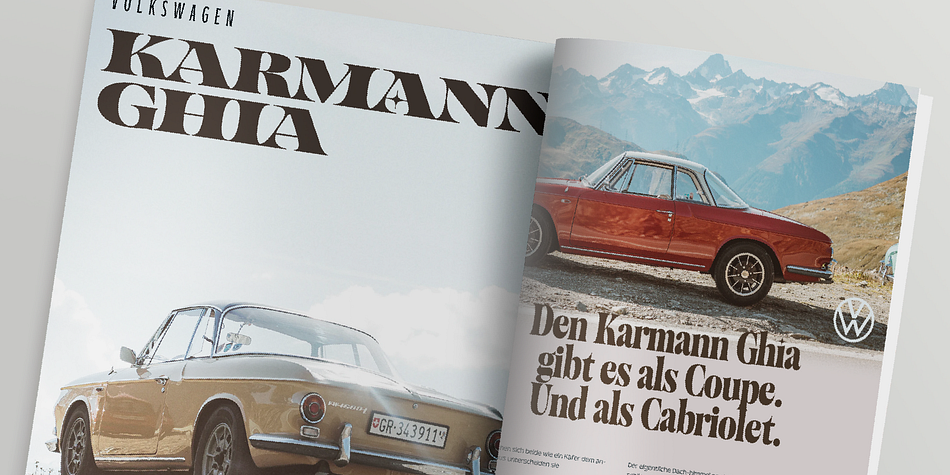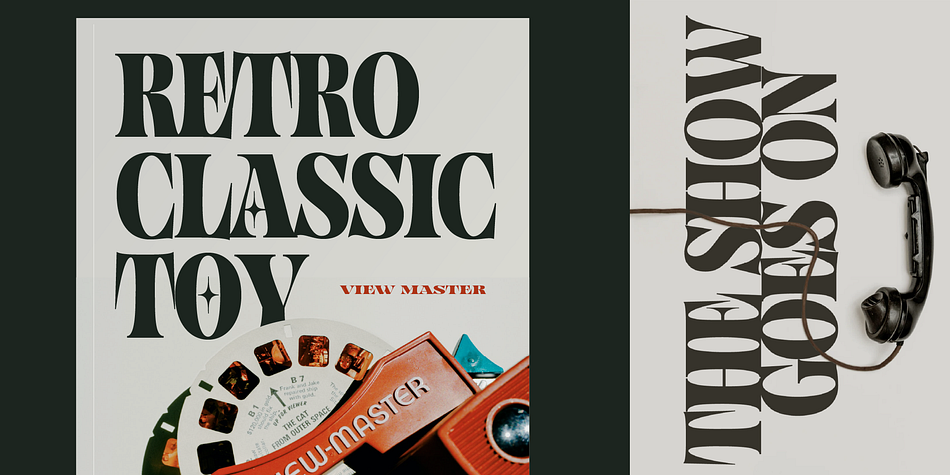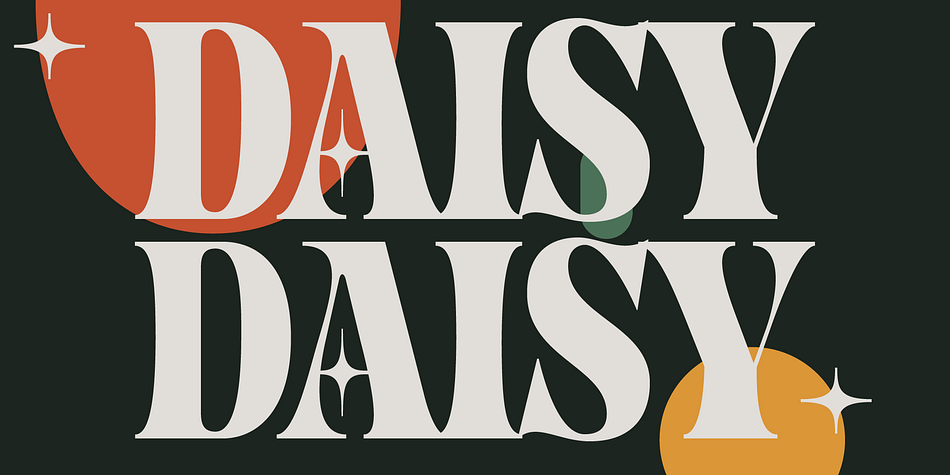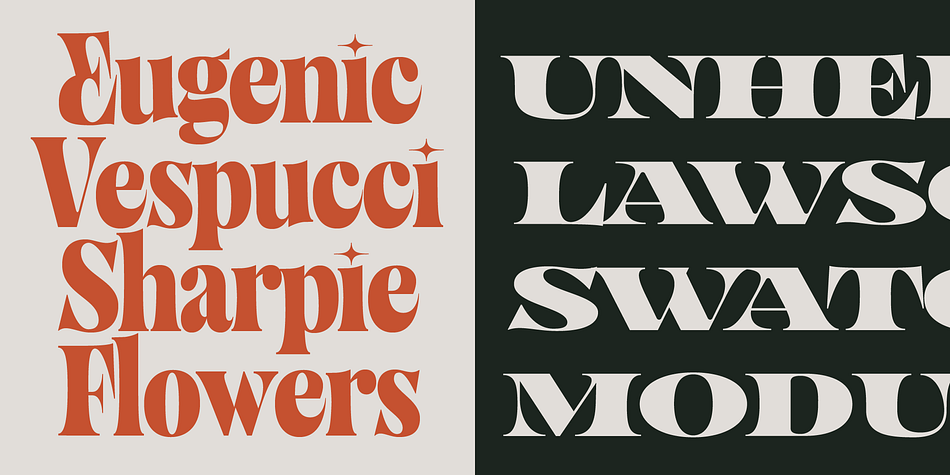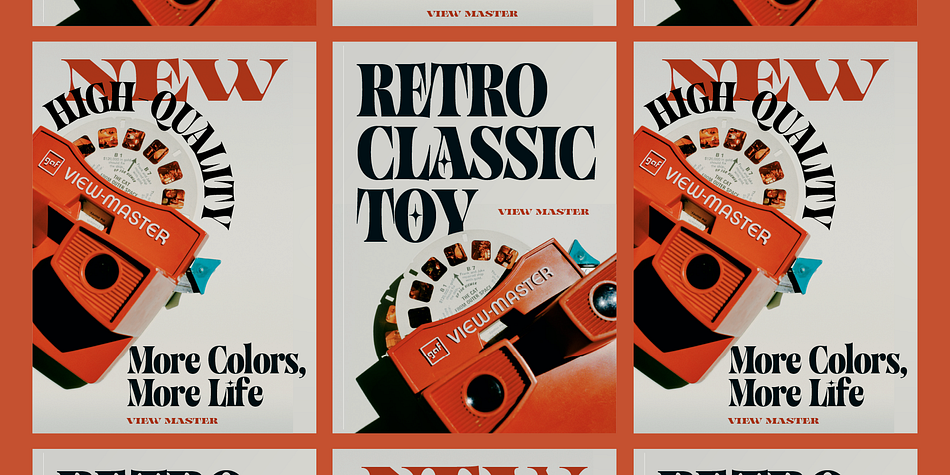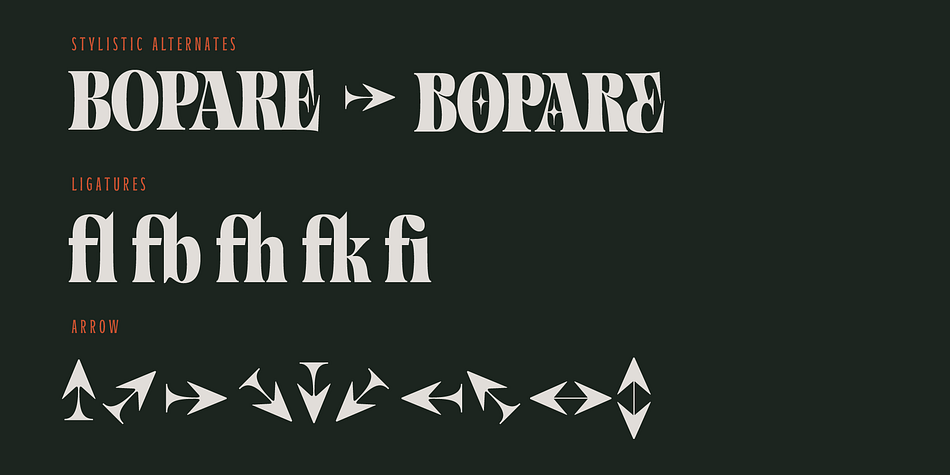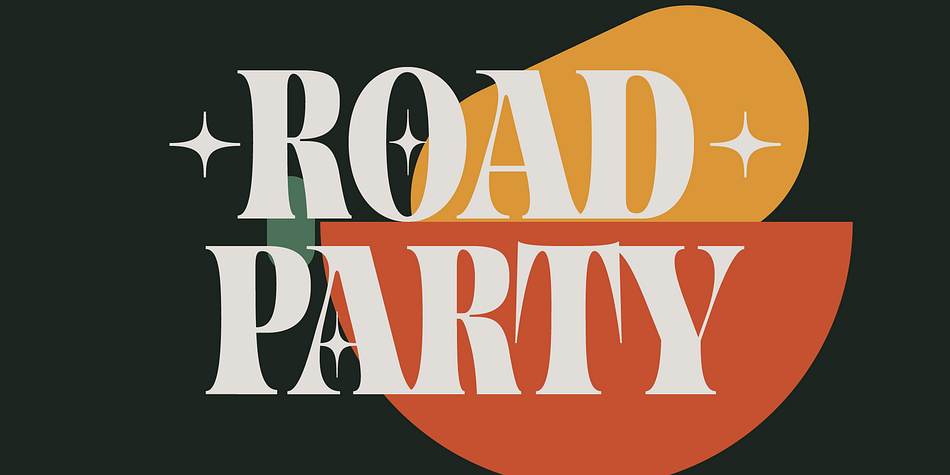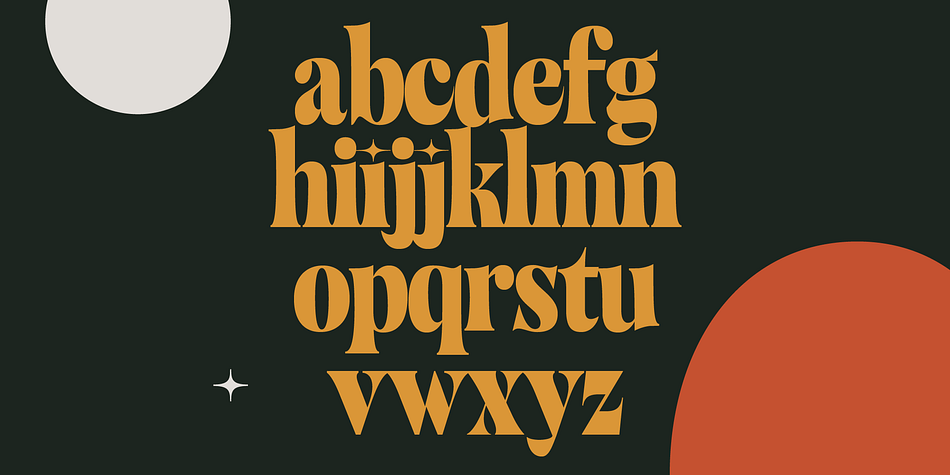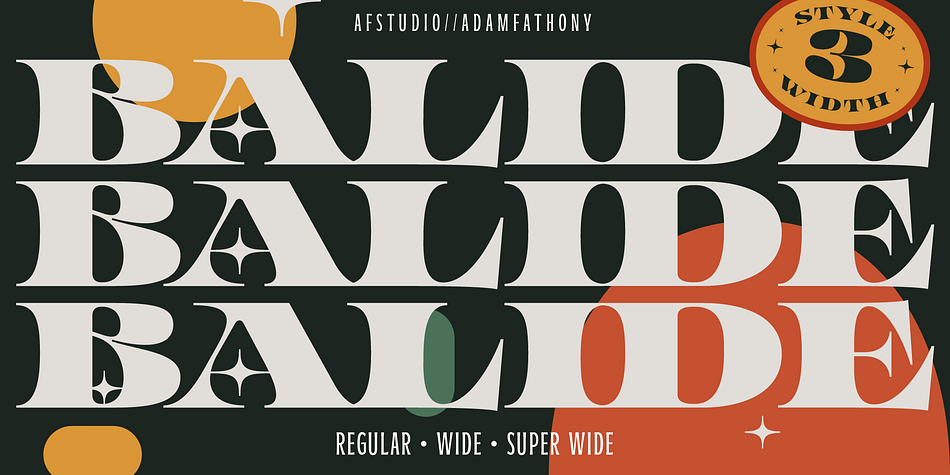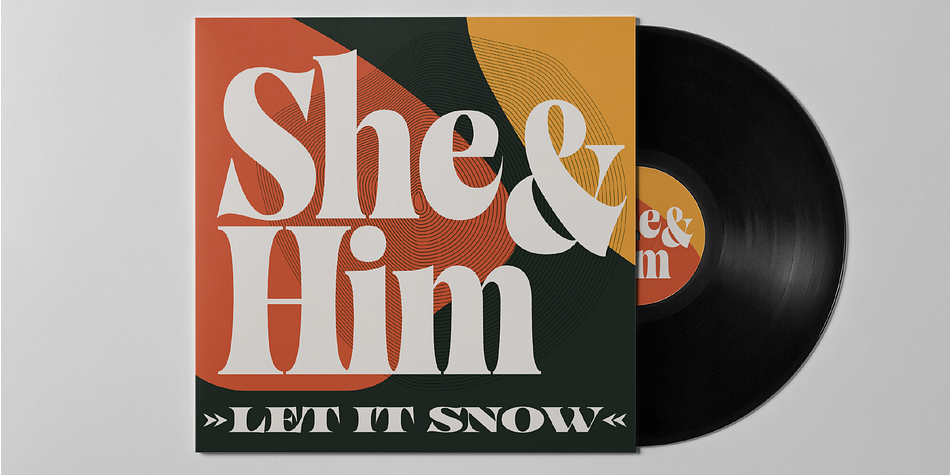
Balide
Balide is a display serif and serif font family. This typeface has three styles and was published by AF Studio.
BALIDE DISPLAY SERIF
Balide are inspired from a something simple, elegant, usable and versatile. So I’ve made as simple as possible on this fonts. Made it with very careful to get the clean looking Serif fonts with Bold Characteristic. Balide comes with 3 Weight, Regular, Wide & SuperWide. Perfectly suited for Headline, Logotype, Poster, Branding, Etc. The opentype features are available are just some of standard ligatures and a few alternate characters.
Balide Regular
Balide Wide
Balide Super Wide